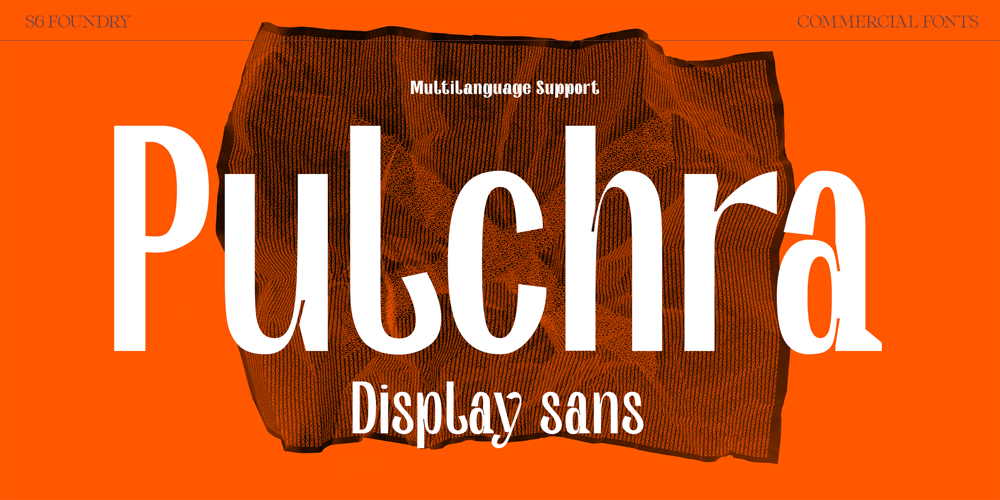
Pulchra SPF Font Family was designed by Paul Henry Robb and published by S6 Foundry. Pulchra SPF contains 4 styles and family package options. Pulchra is a stylish Brutalist font. The font displays a playfulness personality, vitality, with a strong and elegant appearance. The typeface has the right visual consistency for branding communications. It comes with unique lower and uppercase plus numbers, punctuation & multilingual letters. Its thick curves give the 60s & 70s groovy vibe.What you get:- Letters, numbers, punctuation, multilingual support, alternate and ligature- Light, Regular, Medium, and Bold version.